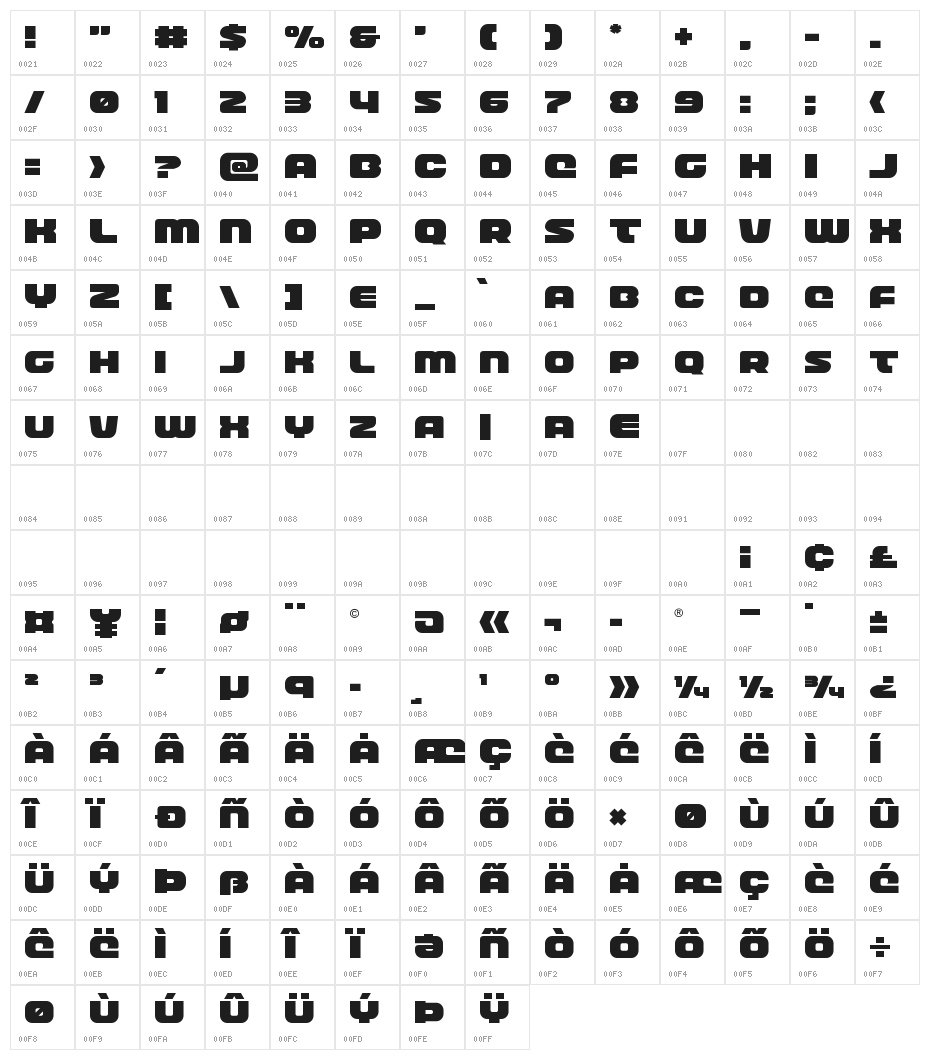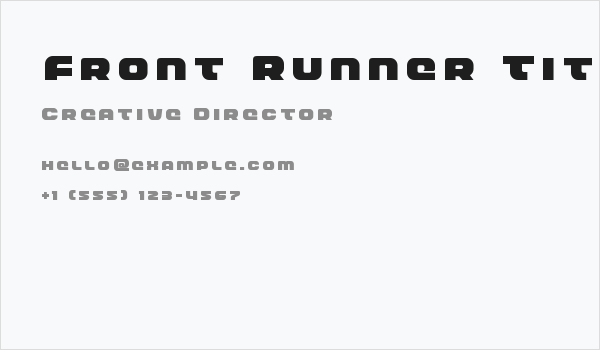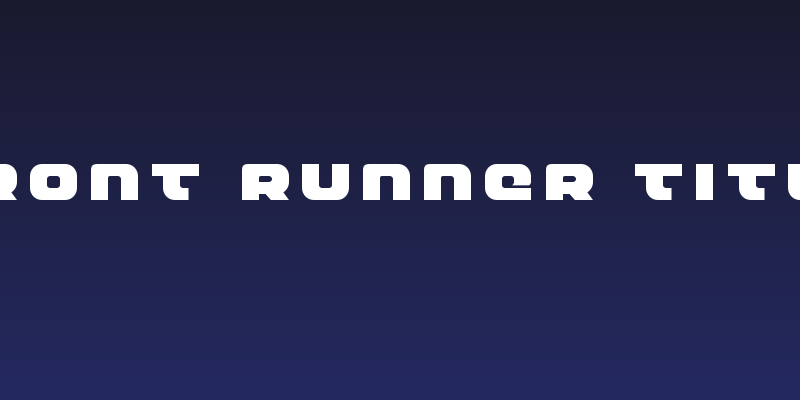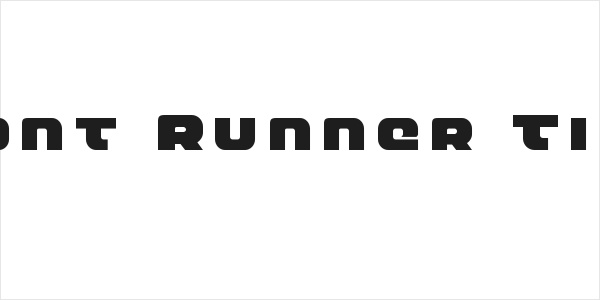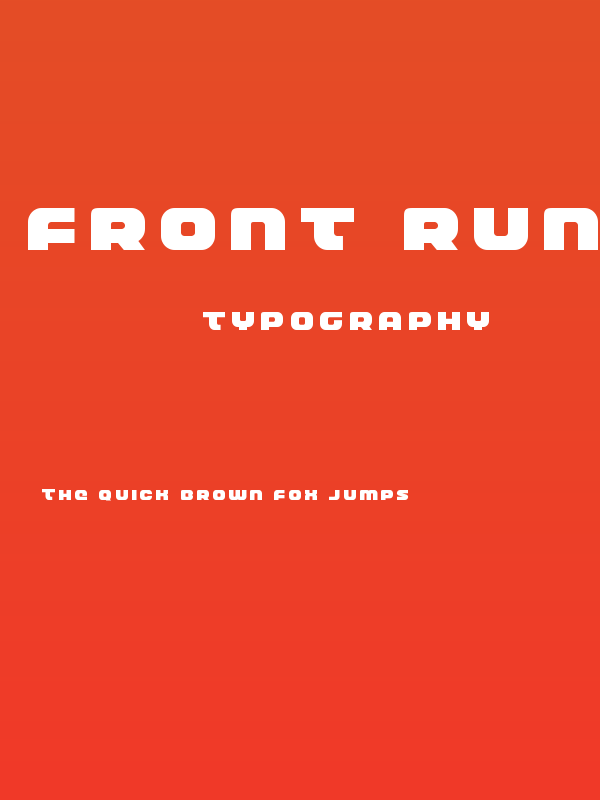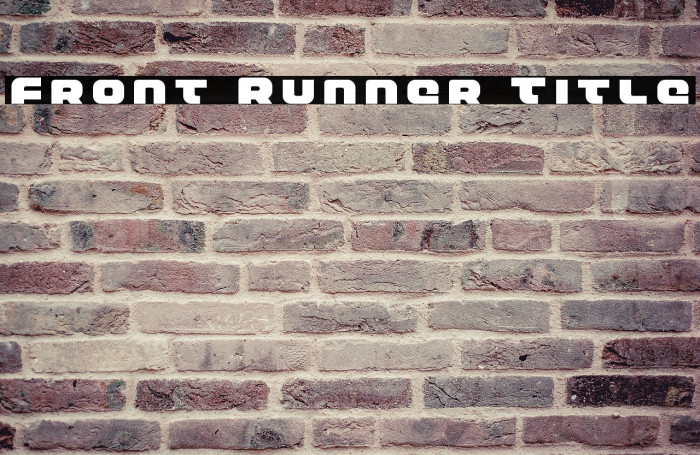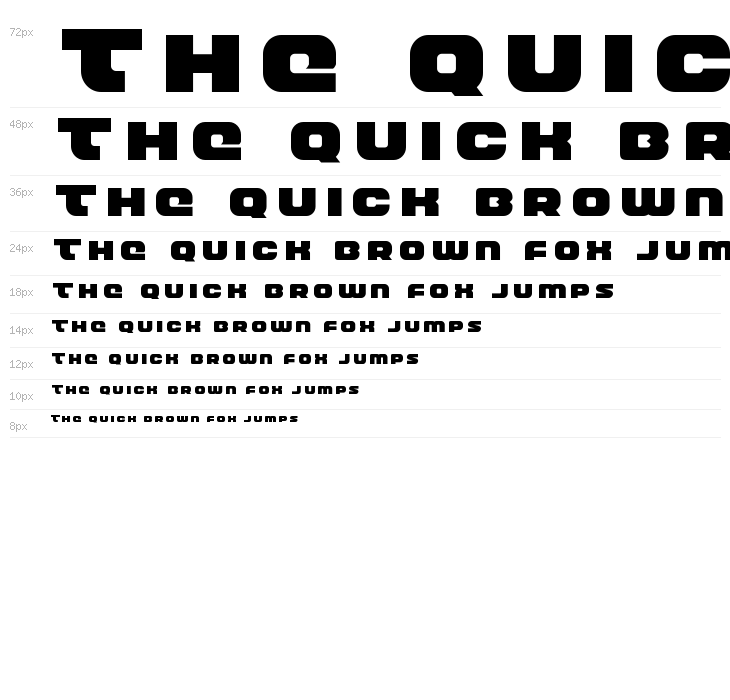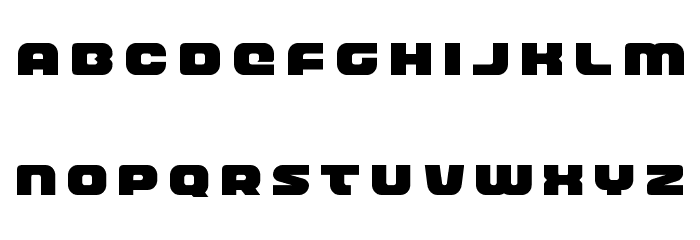
Front Runner Title Font
Front Runner Title Description
This font features a bold, geometric design with a strong presence. The characters are constructed with thick, uniform strokes, giving them a robust and solid appearance. The edges are rounded, adding a touch of softness to the otherwise sturdy forms. The uppercase and lowercase letters maintain a consistent style, ensuring visual harmony. The numerals and special characters are designed to match the boldness and geometric nature of the alphabet, making them suitable for impactful displays. The overall design is modern and assertive, ideal for making a statement.